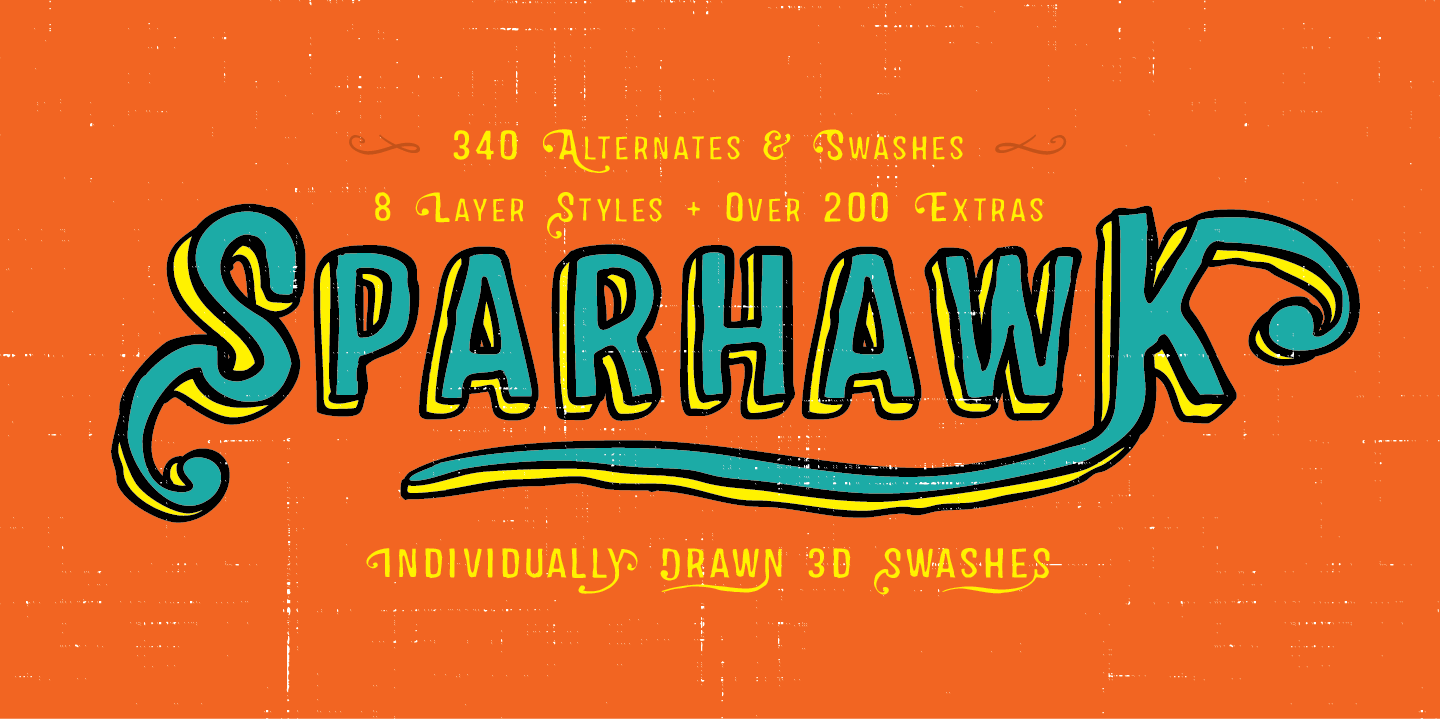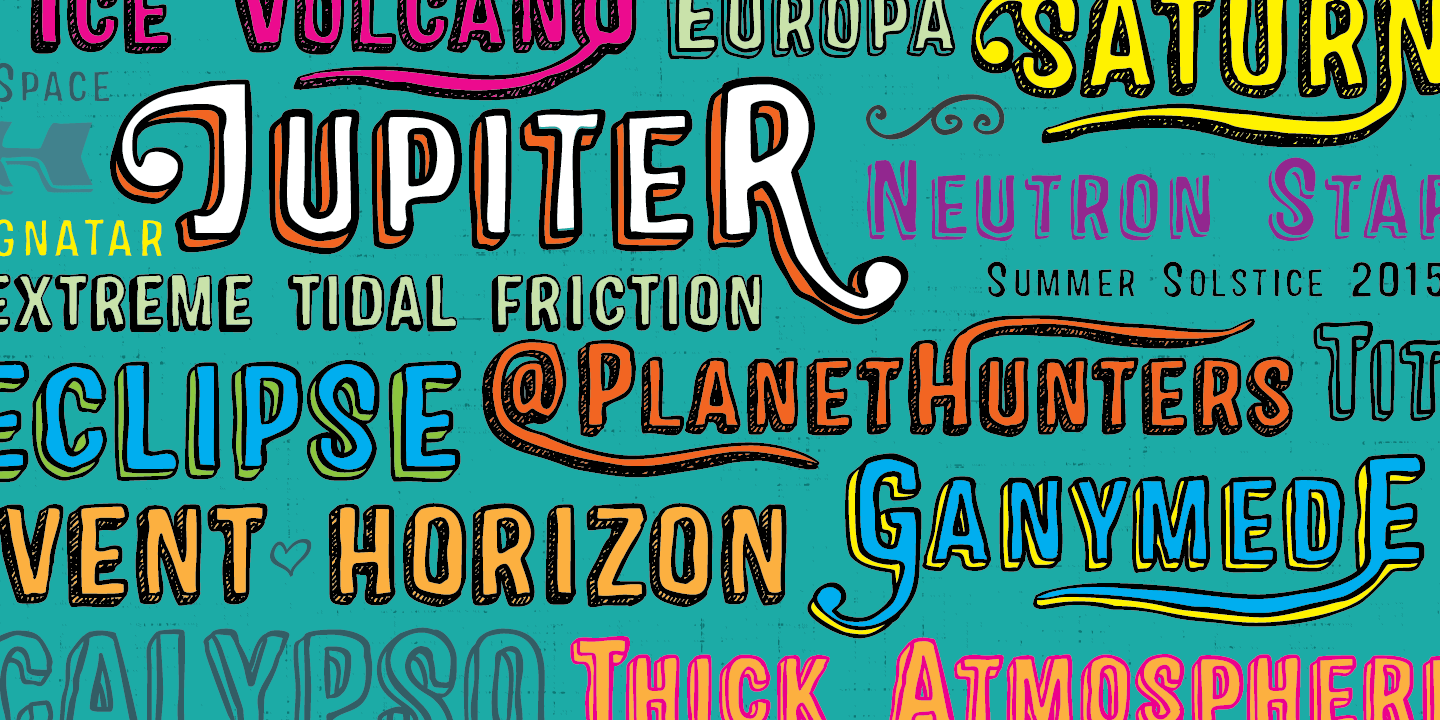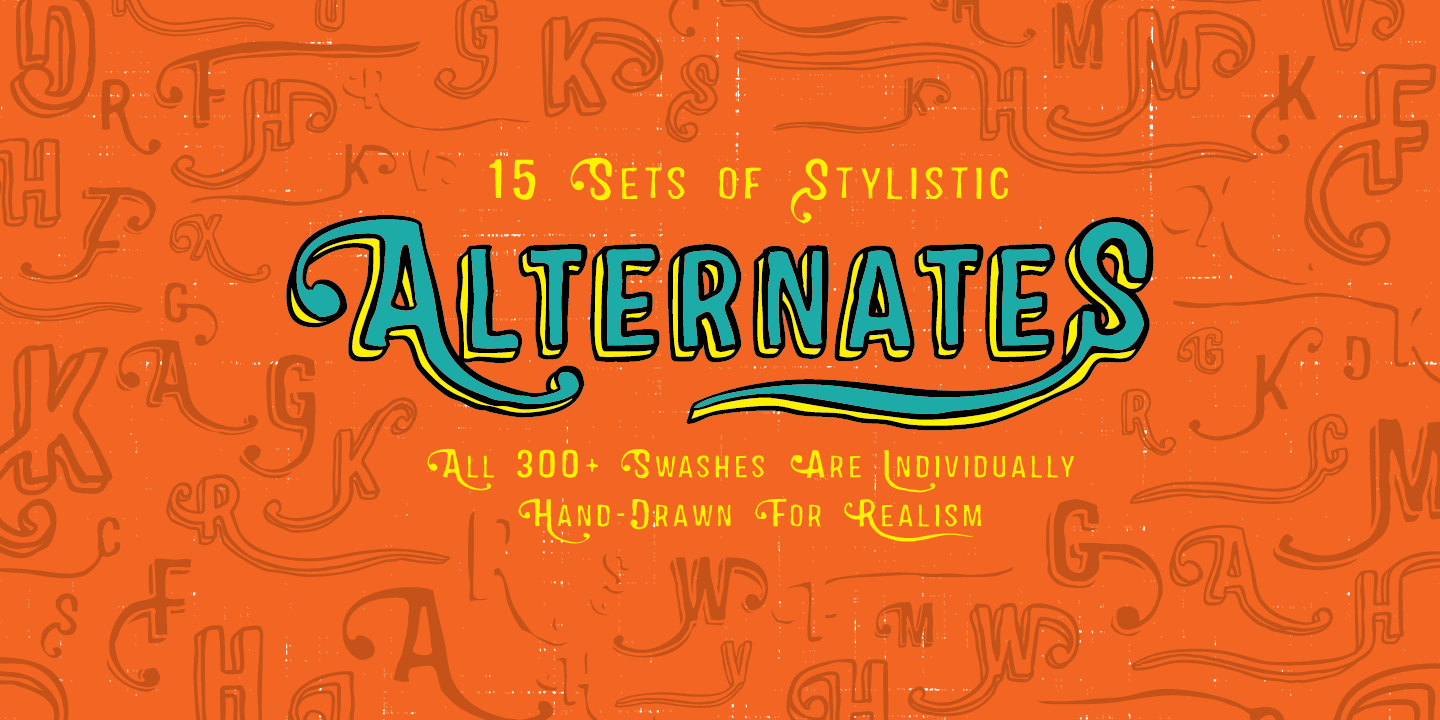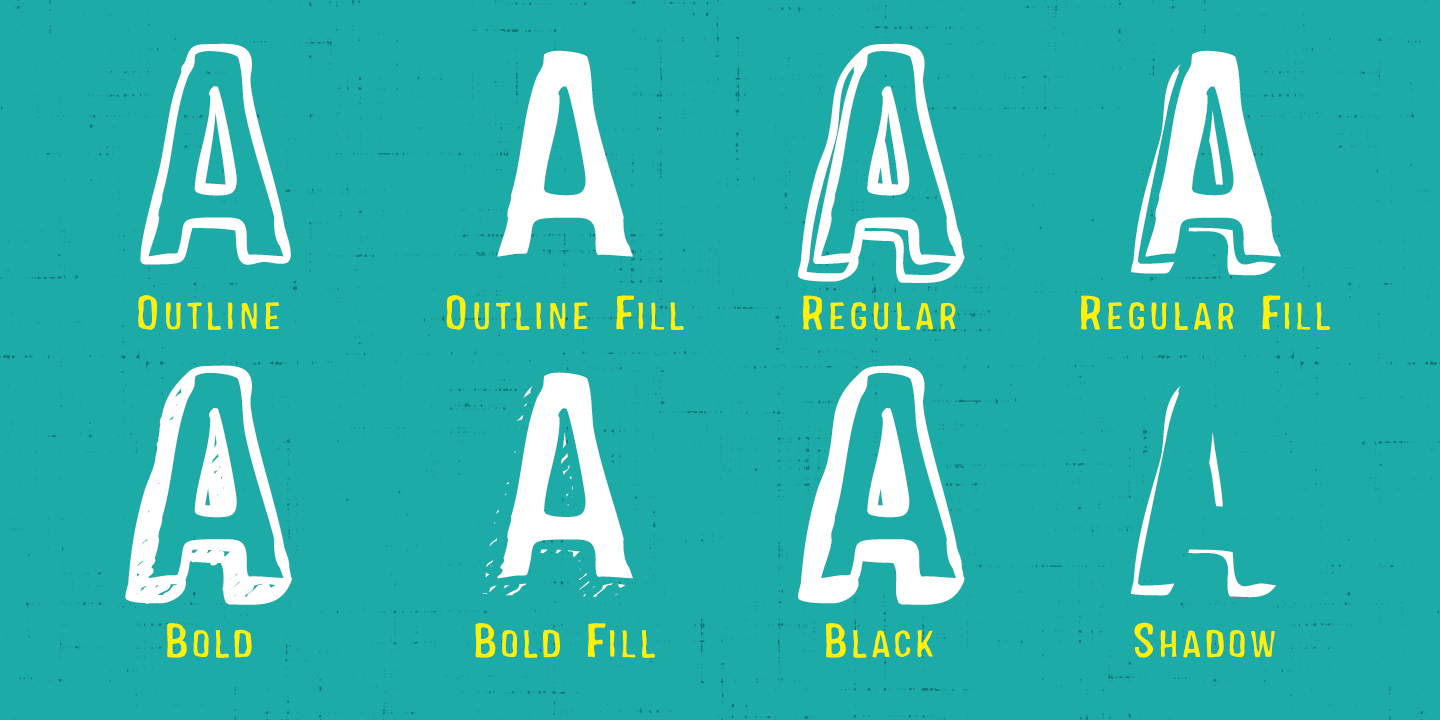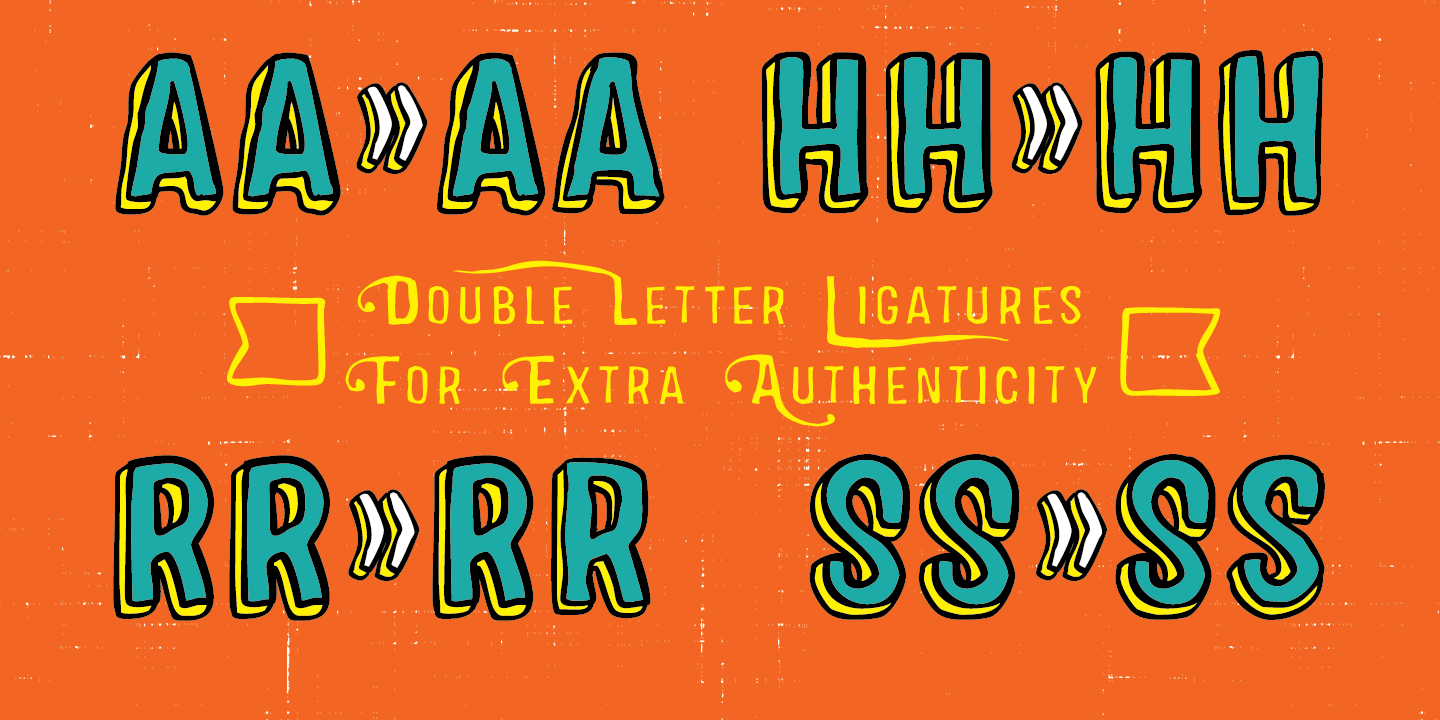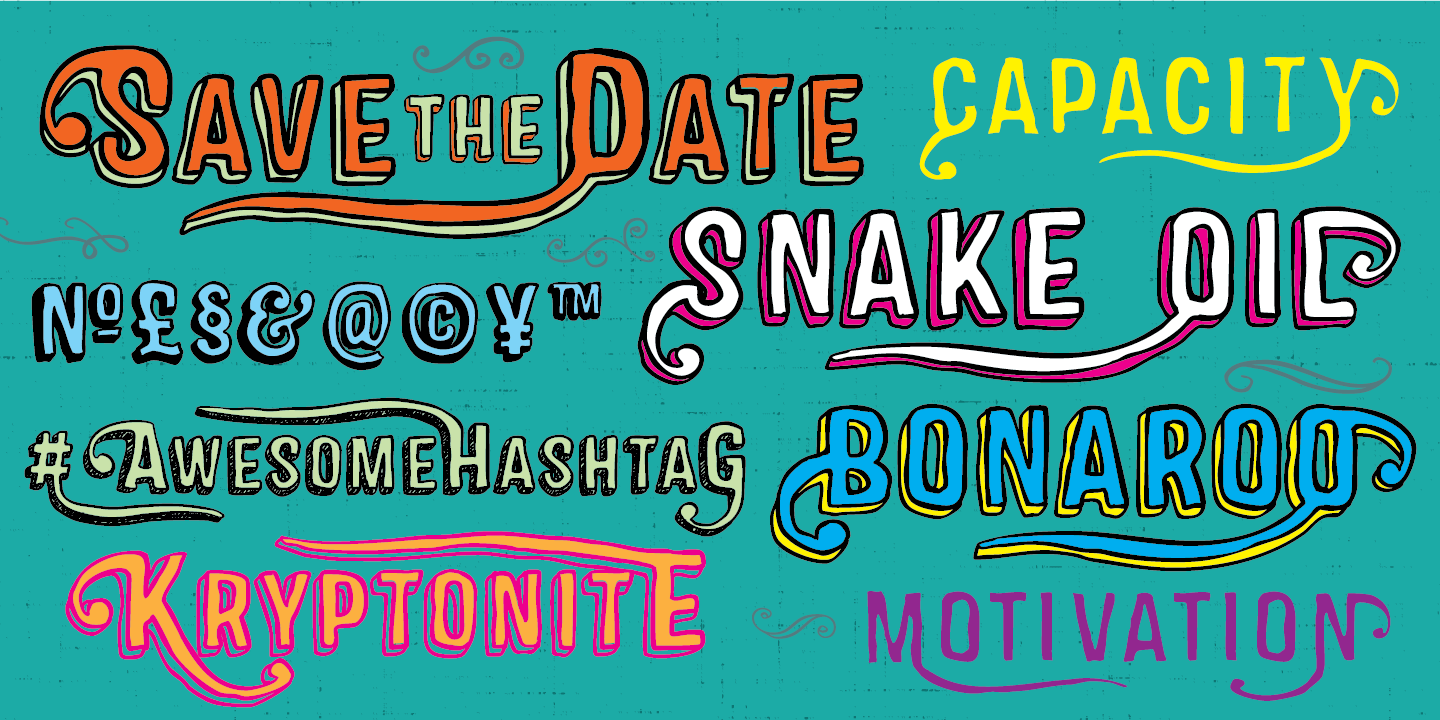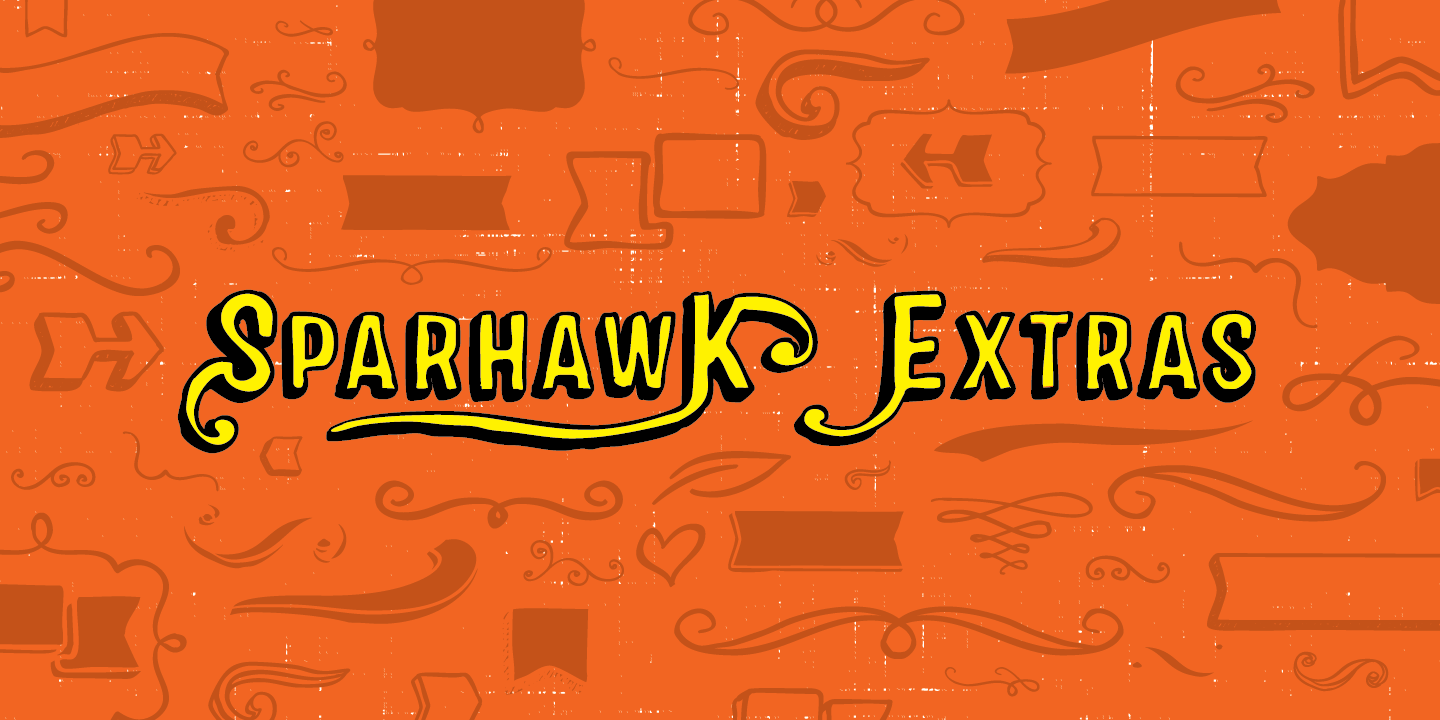
Sparhawk
Sparhawk in it's obvious form is a 3D layered display font, but its packed with over 300 swashes, extremely rare in the 3D font world. Every single swash is hand drawn for extreme organic realism. The lowercase are small caps and the swashes are designed to be used mostly with the lowercase letters (top and drop swashes), but the drop (bottom) swashes also work well with all caps. Sparhawk's large character set and plethora of alternates makes it perfect for logo type, birthdays, weddings, bands? the list goes on. All features include: 8 Awesome Layer Styles, 15 sets of Stylistic Alternates (over 300+ Individually Drawn Swashes), Double-Letter Ligatures for upper and lowercase, and Contextual Alternates.